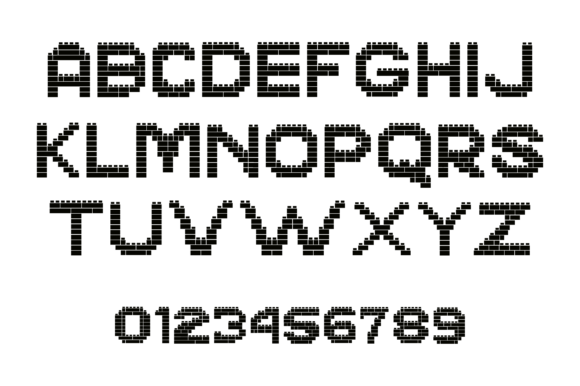
Level Up Your Designs with Building Blocks Smart Font
Have you ever stared at a blank canvas, desperate for inspiration to strike? It’s moments like these that we turn to fonts that transport us to a world of creativity and limitless possibilities. For designers looking to bring a futuristic and dynamic touch to their projects, we’re excited to introduce Building Blocks Smart Font – a game-themed display font that’s about to revolutionize your design game.
Perfect for creating designs related to education, technology, or gaming, Building Blocks Smart Font boasts blocky and futuristic letters with sharp edges and geometric details. Its modern and high-tech personality is sure to capture attention, making it an invaluable asset for designers looking to elevate their projects. Whether you’re working on a video game title, educational materials, or any other high-tech project, Building Blocks Smart Font is the perfect companion to help you level up your designs.
Building Blocks Smart Font Key Features
- Smart Ligatures and Swashes: Automatically adjusts letter combinations and adds flourishes to enhance typography and readability.
- Extensive Language Support: Includes a wide range of languages, including Latin, Cyrillic, and Devanagari scripts.
Building Blocks Smart Font Review
I recently had the chance to work with Building Blocks Smart Font, and I’m excited to share my honest review with you. Here are the highlights.
- Customization Options**: Building Blocks Smart Font offers a wide range of customization options, making it easy to tailor the font to your specific design needs.
- Intuitive Interface**: The interface is user-friendly and easy to navigate, even for designers who are new to smart fonts.
- Responsive Design**: The font is fully responsive, ensuring that it looks great on any device or screen size.
- Limited Font Variations**: While the font is customizable, there are limited font variations available, which may not be ideal for designers who want more options.
- Glitch Issues**: I experienced some minor glitch issues while using the font, which can be frustrating.
Overall, I’m impressed with Building Blocks Smart Font’s customization options and intuitive interface. However, the limited font variations and glitch issues are notable drawbacks. With some further development, I think this font has the potential to be a top contender in the smart font market.
The Building Blocks Smart Font is ideal for:
- Corporate branding and marketing materials.
- Digital signage and displays.
- Print materials such as business cards and brochures.